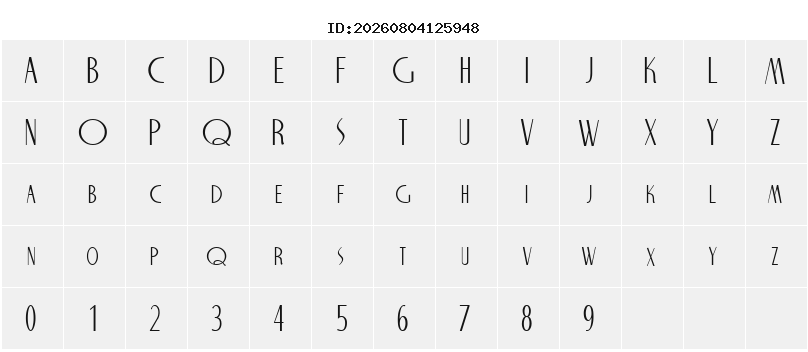
NiteClub Preview
• Font Name: NiteClub
• Full Font Name: NiteClub
• Copyright: NiteClub. Copyright by Thomas E. Harvey.
About NiteClub.ttf
NiteClub.ttf is a modern, elegant sans-serif font designed for ultimate readability and visual harmony. Perfect for branding, headlines, web design, and print materials.